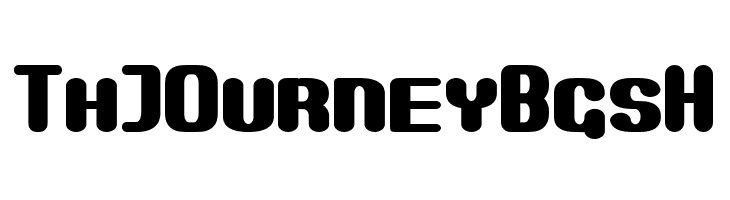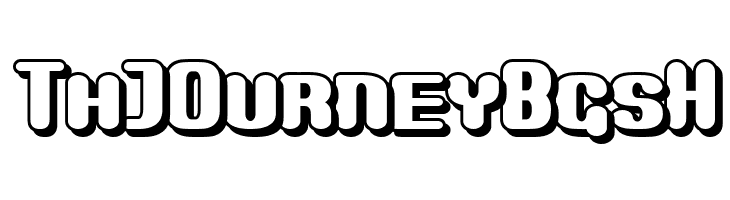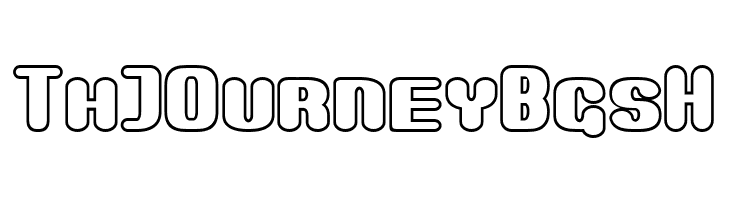
• Monster
A bold, rounded font with a playful and modern retro vibe.
• Monster Outline
A bold, playful outline font with rounded characters and consistent thickness.
• Monster Shadow
A bold, playful font with a three-dimensional shadow effect.